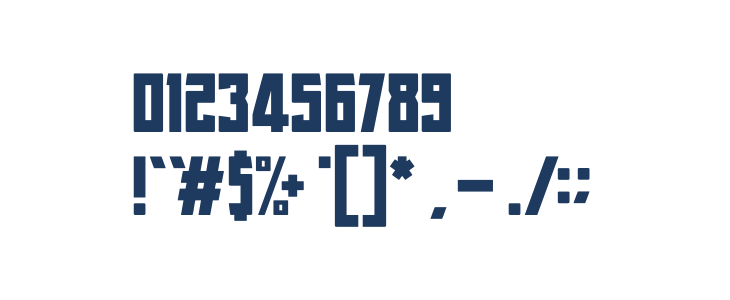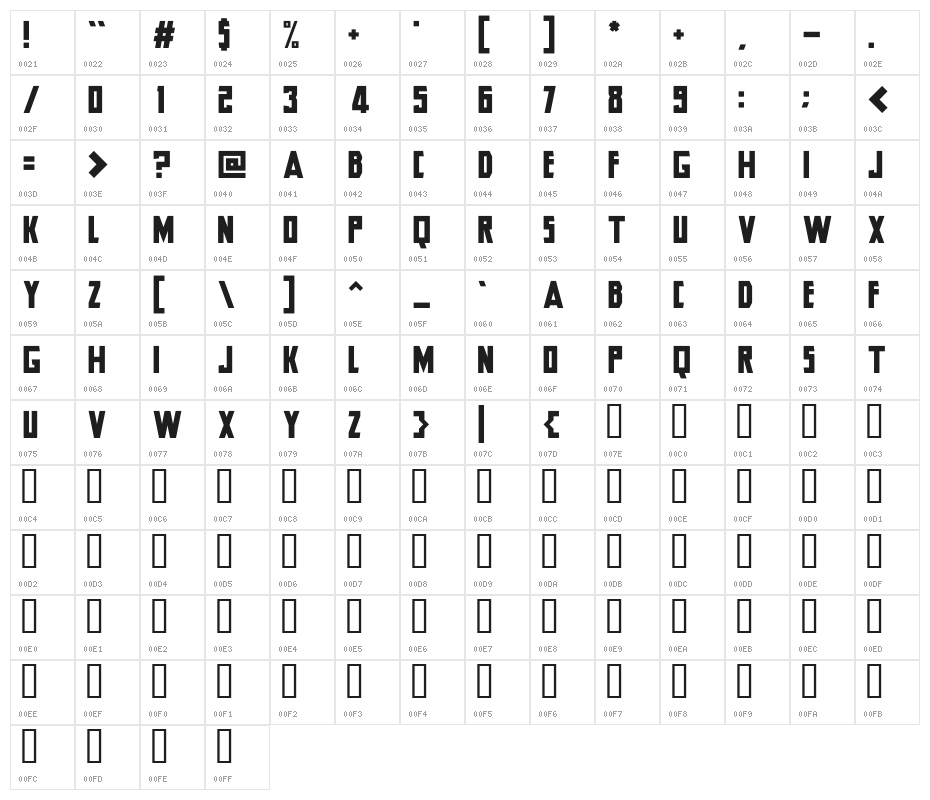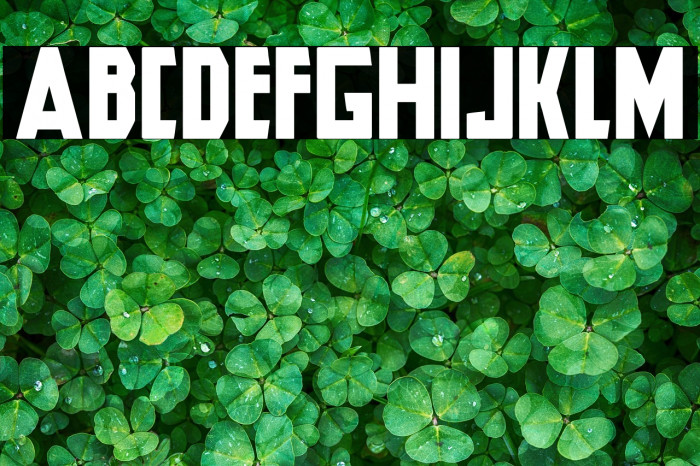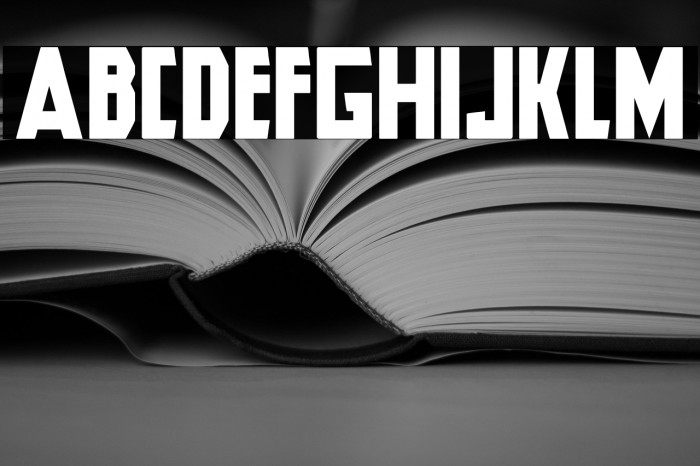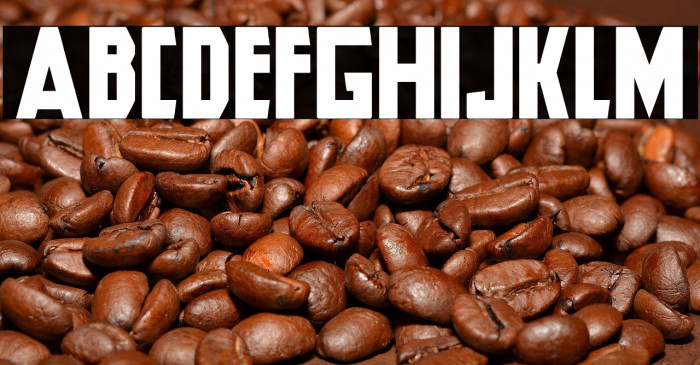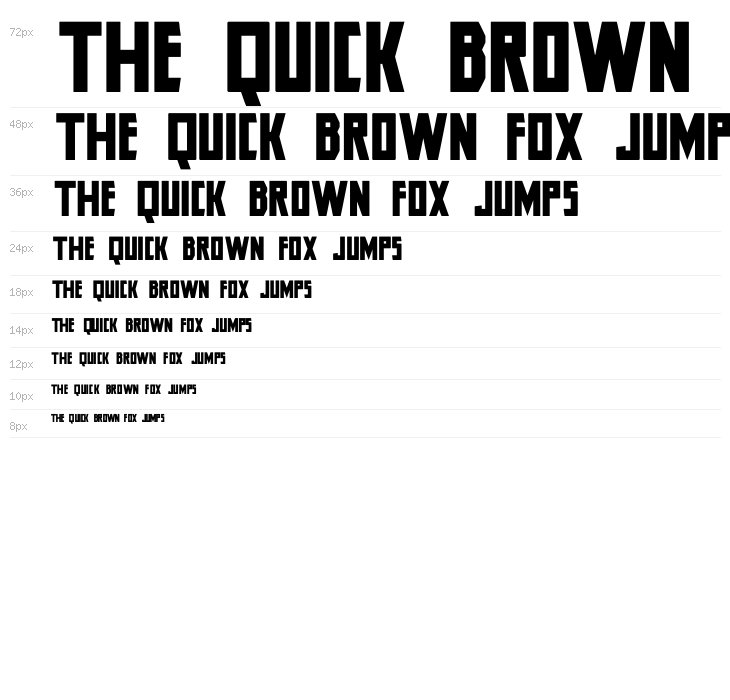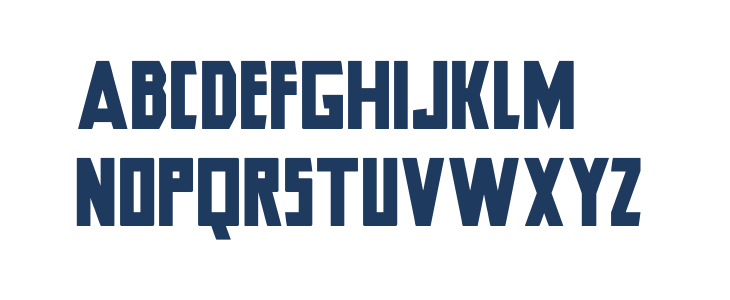
Hero Font
This font features a bold and impactful design with strong geometric shapes and sharp angles. The uppercase letters are particularly striking, with a blocky and robust appearance that commands attention. The numbers and special characters maintain the same bold style, ensuring consistency across all elements. The font's design is reminiscent of industrial or sports-themed aesthetics, making it ideal for projects that require a strong visual presence. Its boldness and clarity make it suitable for headlines and titles where readability and impact are crucial.
Proposed ProjectsPerfect for sports branding, posters, logos, and any design requiring a bold statement.